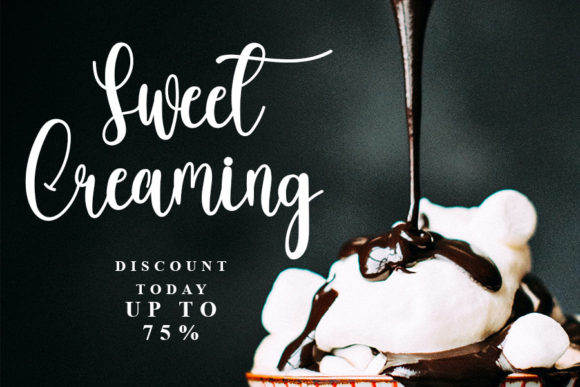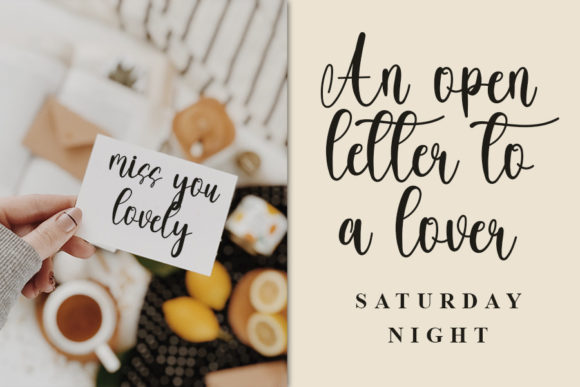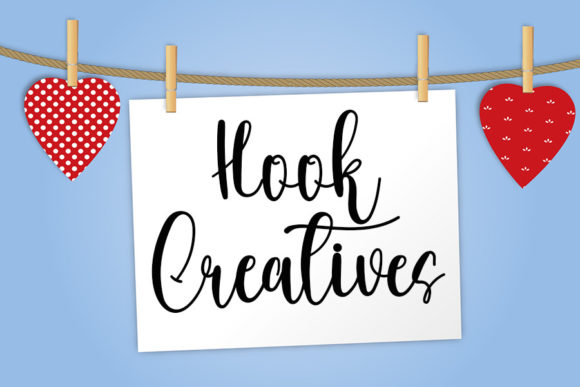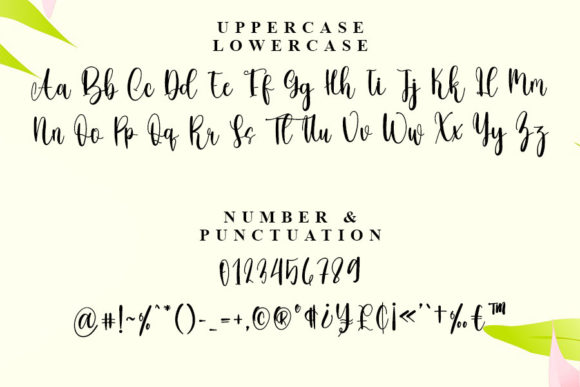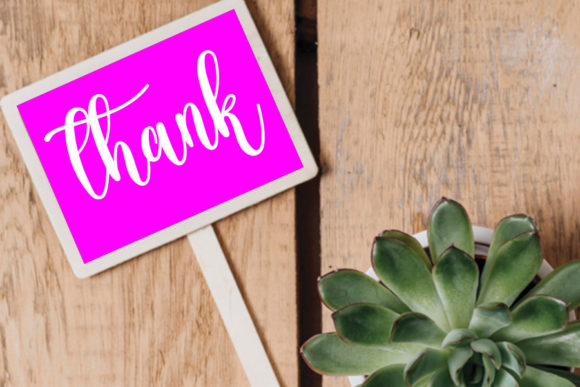
Chocolate Font
About Chocolate Font
Chocolate is a tall, casual and relaxed handwritten font. Its natural and unique style makes it incredibly fitting to a large pool of designs. The only limit is your imagination!